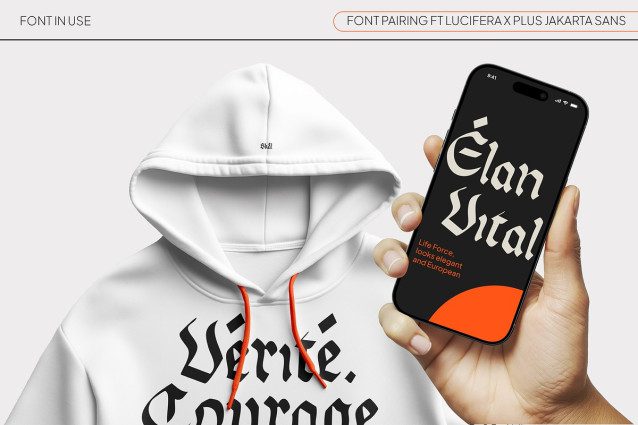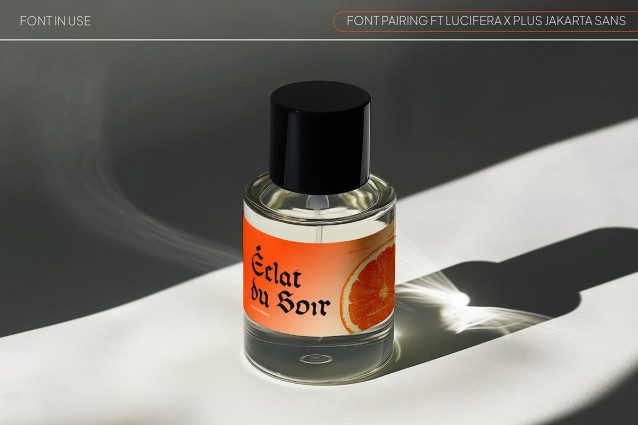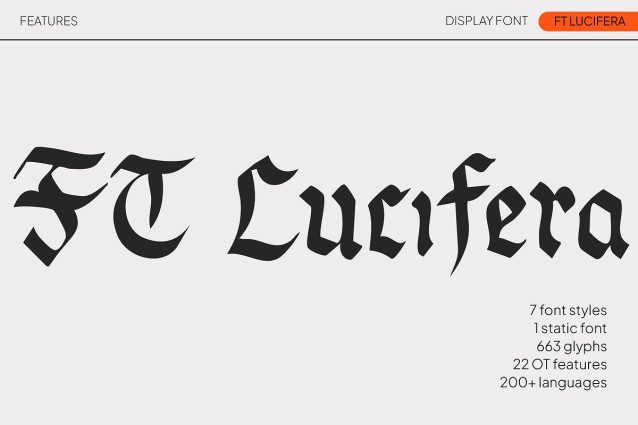
FT Lucifera Font
FT Lucifera Font is a handcrafted handwritten font that captures the essence of modern calligraphy with a twist of casual flair. Designed for those who seek authenticity and emotion in their typography, FT Lucifera brings warmth, personality, and a contemporary edge to your creative projects.